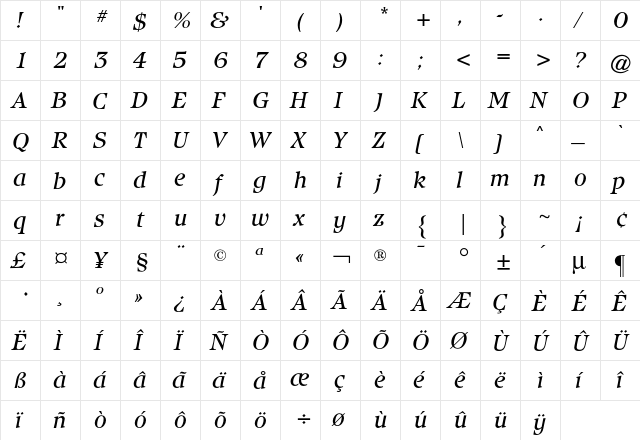
Isbell CG Italic
Design Context for Isbell CG Typeface
Isbell CG is a composed and adaptable typeface that performs quietly and consistently across a wide range of design contexts. The slanted form adds forward momentum and visual energy.
Pro Tip: Use Isbell CG for emphasis, pull quotes, and subheadings where its slanted energy can add rhythm to the layout.